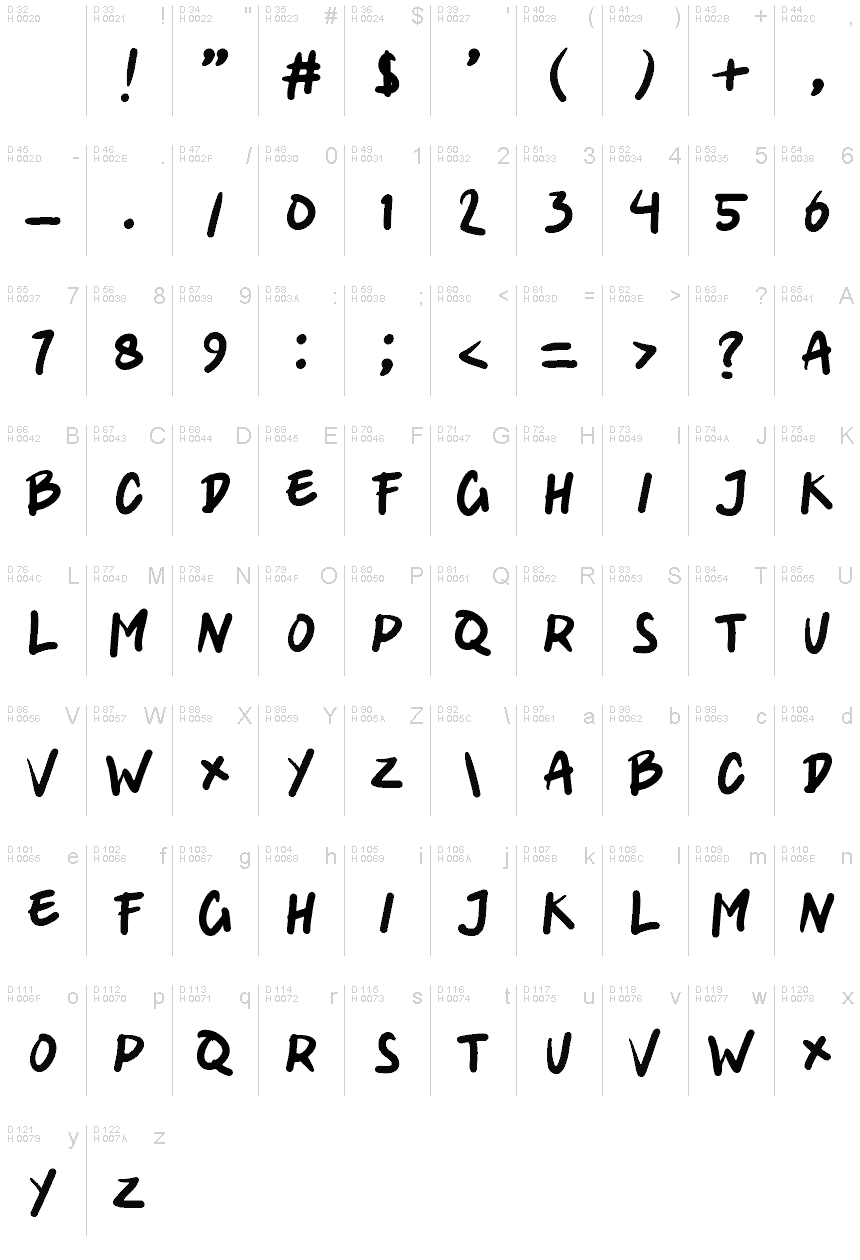
mie aceh
Mie Aceh is a playful, handwritten font that exudes a charming, whimsical flair. The bold, expressive strokes and organic, free-flowing shapes give the typeface a distinct personality, making it an excellent choice for display or headline purposes.
Its comic-inspired aesthetic lends a sense of fun and energy, ensuring it stands out in various design contexts, from branding and packaging to editorial layouts and event posters.
Mie Aceh's versatility and visual appeal make it a compelling option for designers seeking to inject a touch of personality and creativity into their work.